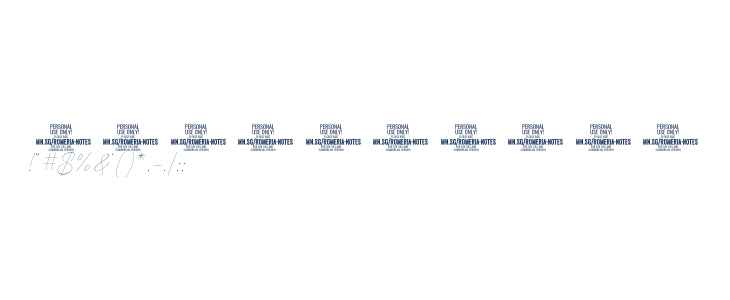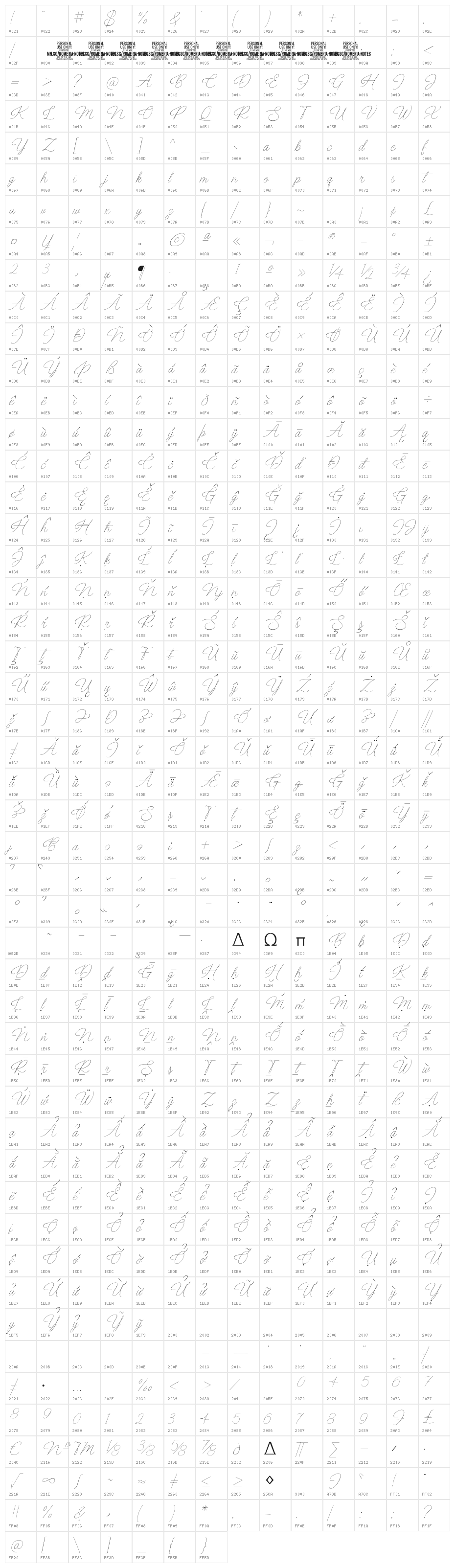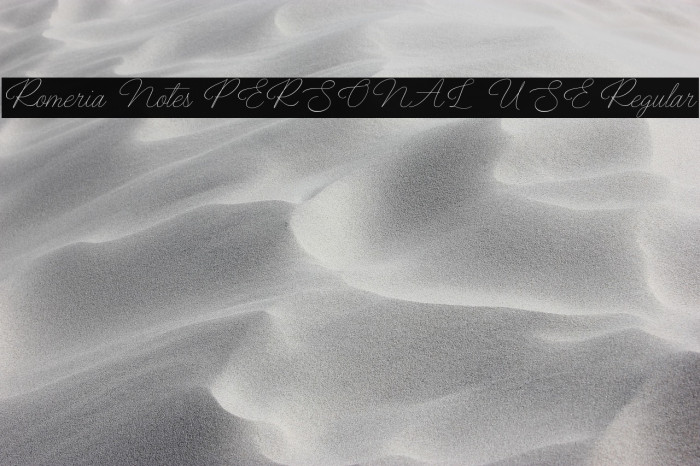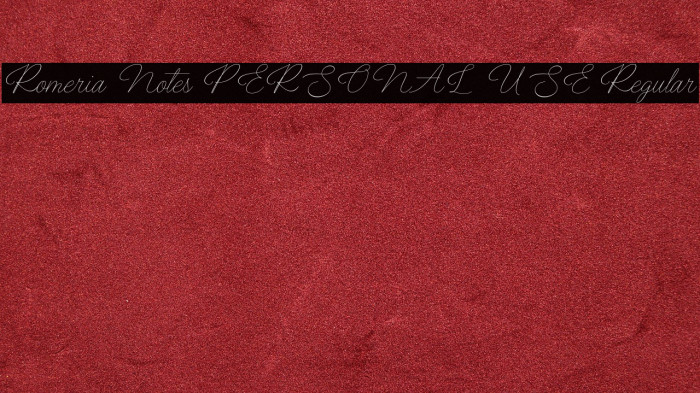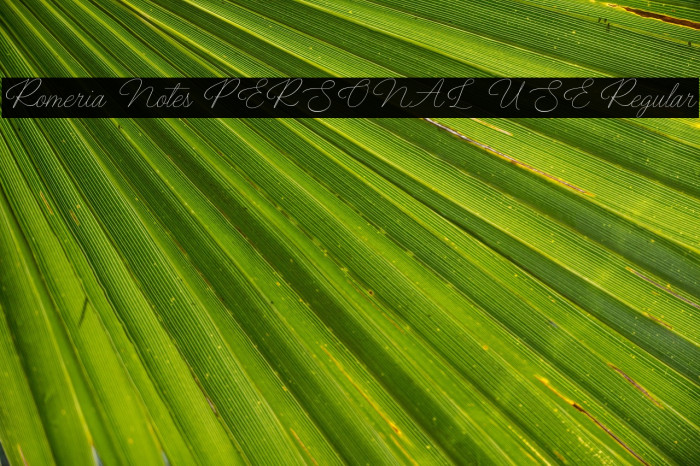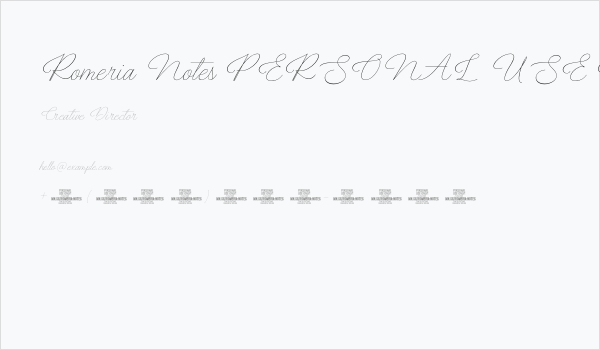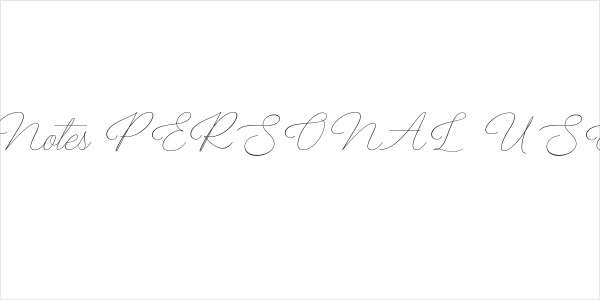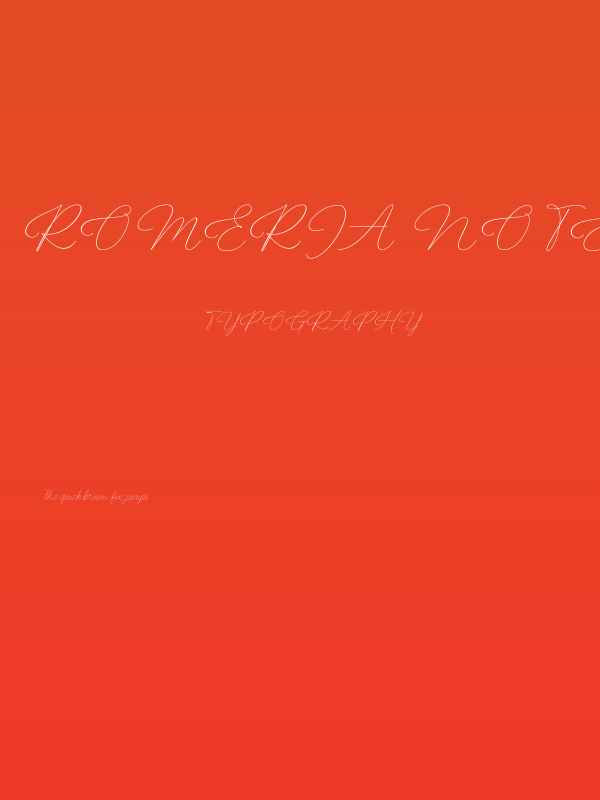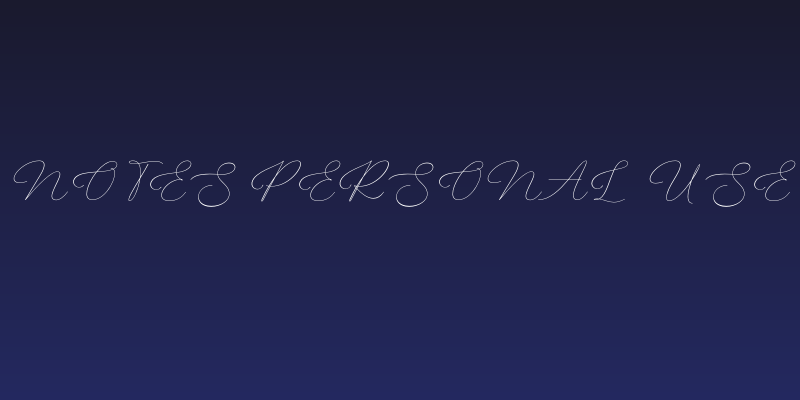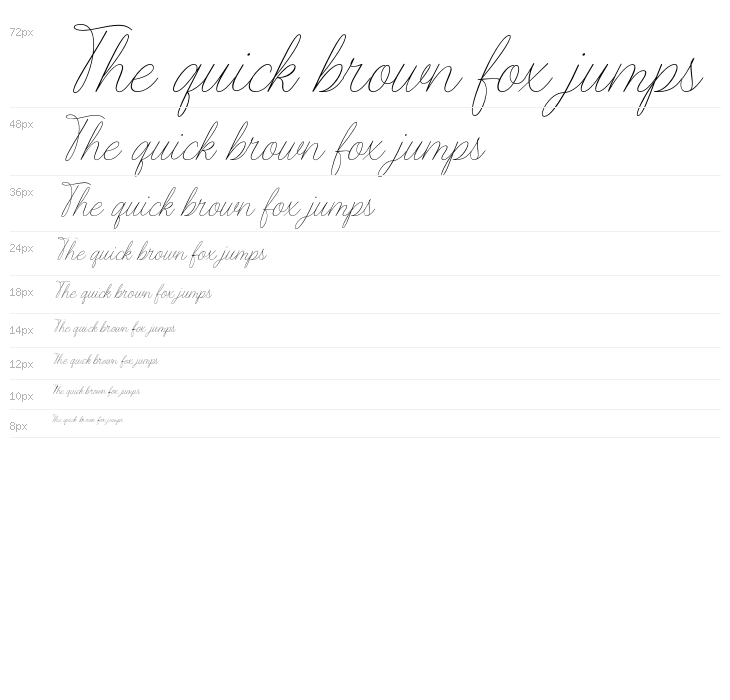
Romeria Notes PERSONAL USE Regular Font
Romeria Notes PERSONAL USE Regular Description
This font is a delicate and elegant script style, characterized by its flowing, cursive letters that mimic the fluidity of handwriting. The uppercase letters are gracefully elongated with gentle curves, while the lowercase letters maintain a consistent slant, enhancing the handwritten feel. The strokes are thin and uniform, providing a light and airy appearance. The numerals and special characters are designed to match the overall script style, ensuring a cohesive look across different text elements. This font exudes a sense of sophistication and is ideal for projects that require a personal touch.
| Use Case | Invitations, Personal notes, Branding |
| Proposed Projects | Ideal for wedding invitations, personal letters, branding, and elegant stationery. |